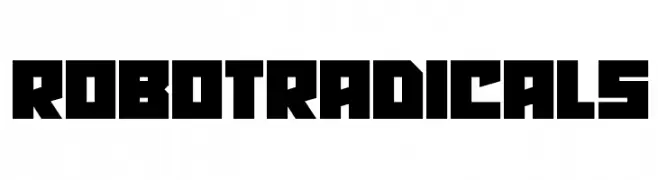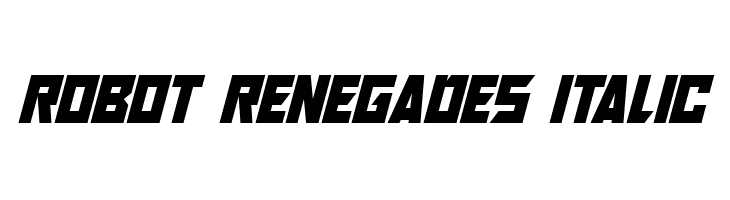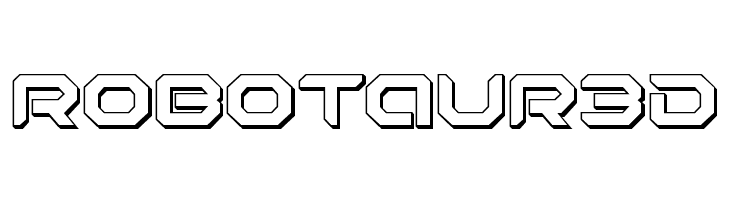
A bold, geometric font with a futuristic, robotic style.
A bold, futuristic italic font with sharp angles and a sci-fi aesthetic.
( Fonts by Médéric Niot )
A decorative font with characters designed as mechanical structures.
( Fonts by Imagi Factory )
A bold, geometric font with a futuristic and robotic design.
( Darrell Flood )
A bold, geometric font with a futuristic and robotic design.
( Darrell Flood )
A bold, angular, and italicized font with a futuristic and dynamic style.
Futuristic, angular font with a sleek, modern design.